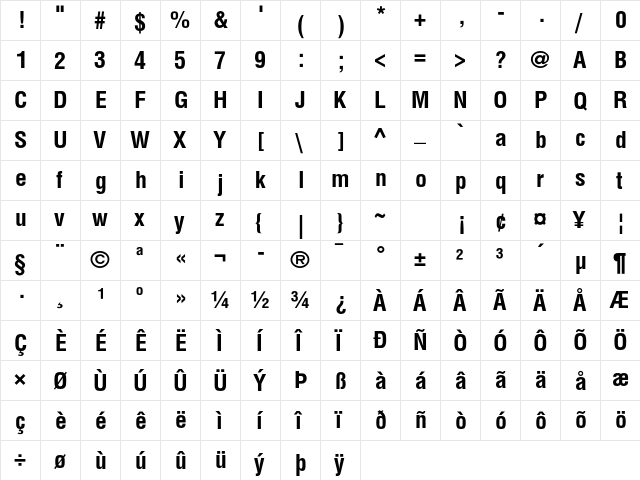
Helvetica LT Std Bold Condensed
| Designer | Max Miedinger |
Design Context for Helvetica LT Std Typeface
Helvetica LT Std takes a measured approach to typography — its balanced proportions and neutral character make it a reliable workhorse for both digital and print work. Its bold stroke weight gives it real presence on the page. The condensed width makes it efficient for tight spaces without sacrificing legibility.